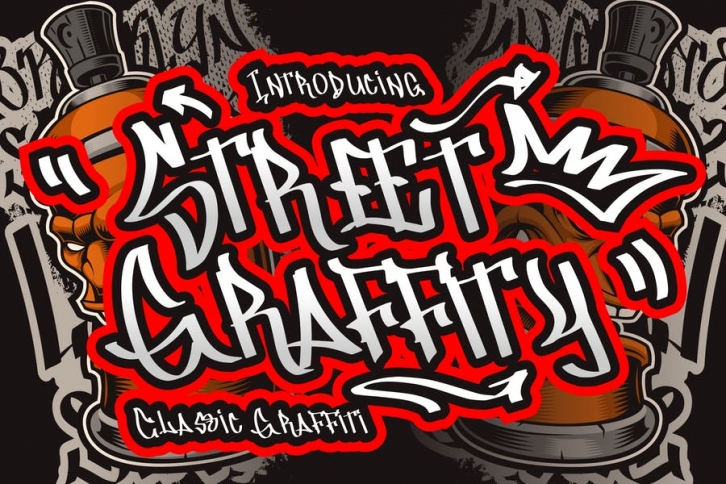
Introducing Street Graffity - A classic graffiti font with various alternate and ligature. This font will looks awesome and amazing in many way to your latest project. The font is perfect for movie title, logo, blogging, brand identity, book title, social media, branding, wedding invites, cards or simply use it in your next design project and suitable to use for many occasion.
- Ton of glyphs
- Numerals
- Alternate
- Multilingual Characters support for;Afrikaans, Albanian, Czech, Danish, Dutch, English, Estonian, Finnish, French, Hungarian, Italian, Latvian, Lithuanian, Norwegian, Polish, Portugese, Slovak, Slovenian, Spanisch, Swedish, Turkish.